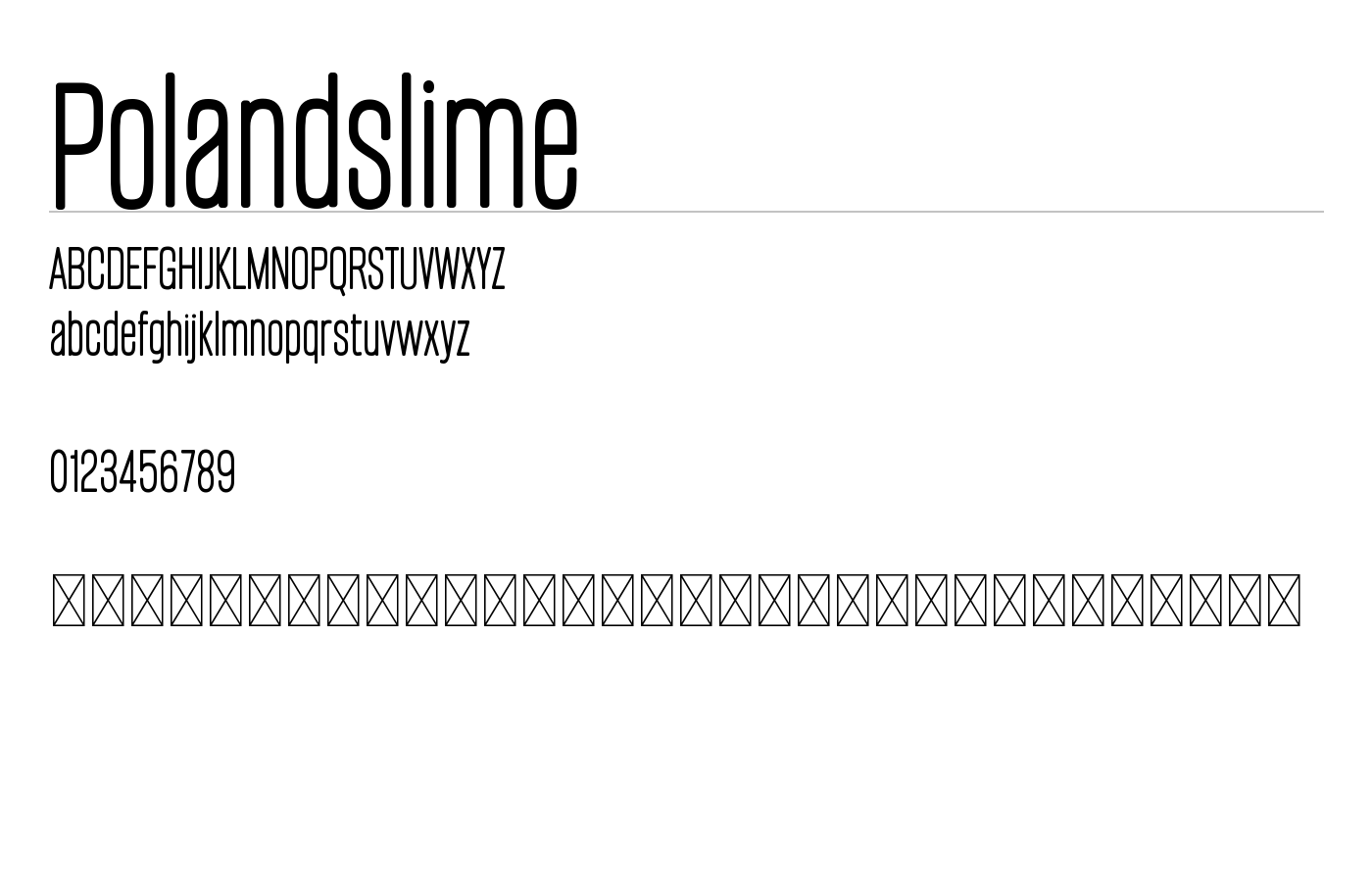
Polandslime is a narrow, sans serif font with a modern and minimalist style, characterized by its tall, slender letterforms and consistent stroke weight. Its clean and condensed structure makes it well-suited for headlines, logos, and projects that require a sleek, contemporary feel. This font works best in settings where space-saving and legibility with a distinct, elegant touch are important.
Polandslime Font
About Polandslime Font
| Font family | Polandslime Font |
| Designer | Joko Triwijayanto |